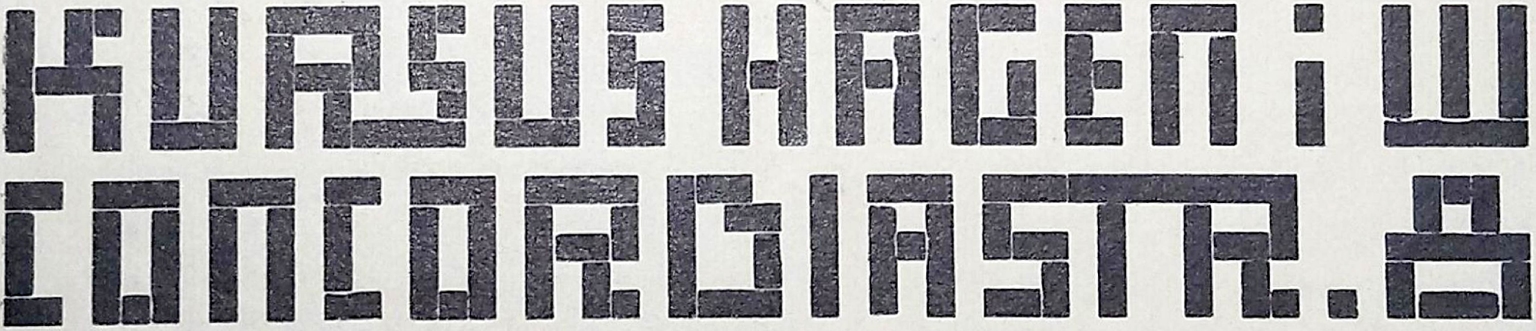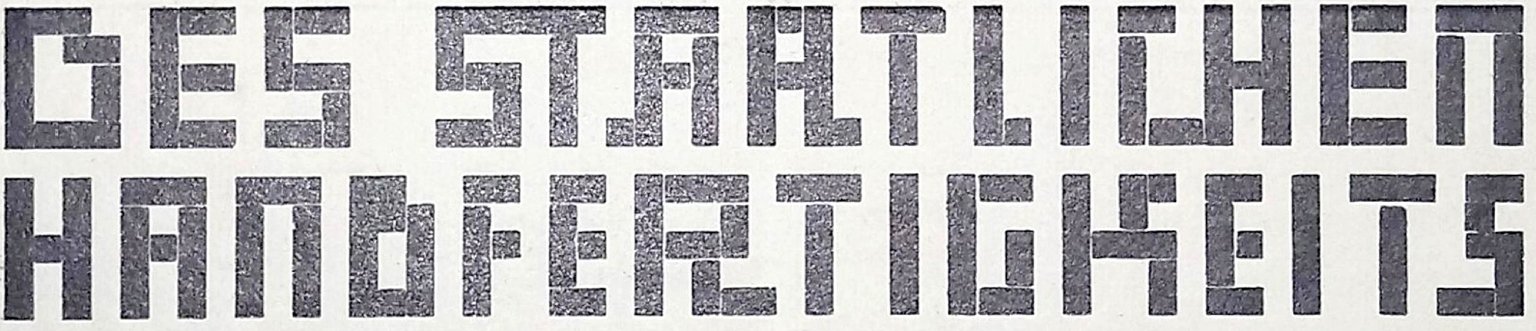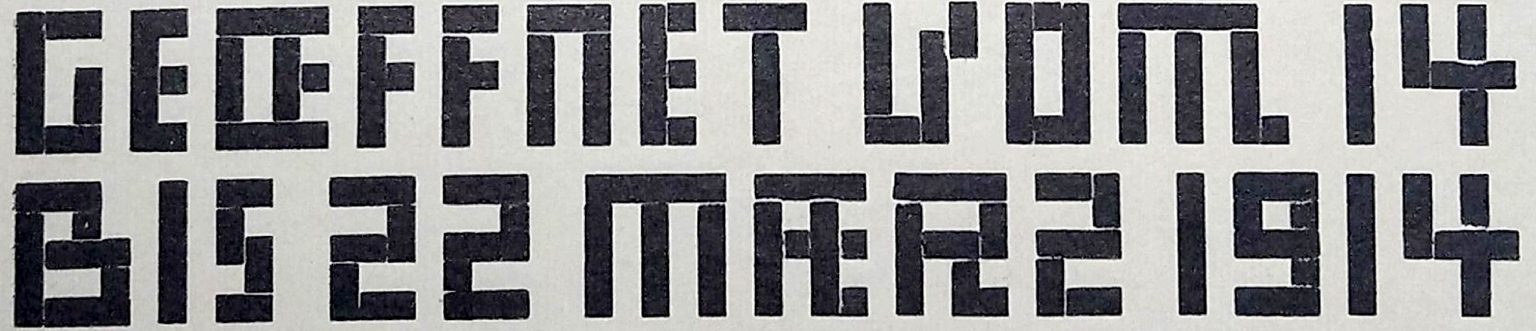
Kursus
Kursus is a neo-constructivist display typeface designed by Ramiro Espinoza, inspired by the geometric and curve-free lettering of Dutch designer and architect Mathieu Lauweriks (1864–1932). Drawing from letterforms found on business cards and an invitation to an exhibition of the Staatliche Handfertigkeitskursus in Hagen, Kursus channels the modular, rational spirit of Lauweriks’ typographic experiments. With its radical use of simple shapes, blocks, and minimalist attitude, the typeface offers a fair reinterpretation of early modernist ideals. Lauweriks’ systematic approach to design left a deep mark on Dutch visual culture. His influence can be traced in the work of Hendrik Wijdeveld for Wendingen magazine, and in the architectural lettering of buildings like the Telegraaf headquarters in Amsterdam, designed by Frits Staal and Gerard Langhout.
Espinoza’s Kursus pays homage to this lineage with a typeface that is as rigorous as it is expressive—ideal for projects where historical depth meets avant-garde flair.